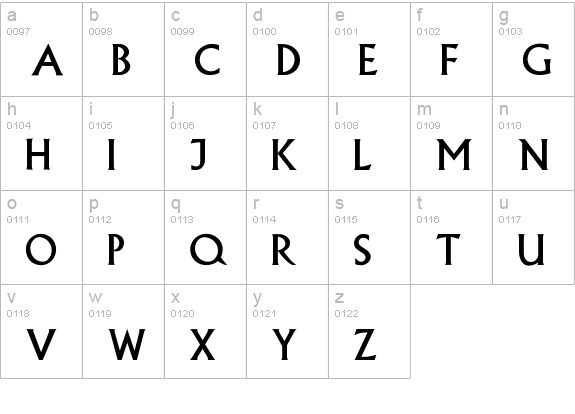
Valcona Font Details
Valcona is an exquisitely crafted font that combines elegance with a touch of modern sophistication. Its clean and stylish letterforms make it a versatile choice for a wide range of design projects, from branding and packaging to editorial and web design. With its balanced proportions and graceful curves, Valcona conveys a sense of refined beauty that is sure to captivate and engage viewers. Whether used for headlines, titles, or body text, this font effortlessly brings a touch of class to any composition. What sets Valcona apart is not only its aesthetic appeal but also its accessibility. This font is available for free to download at FontsMarket.com, allowing designers and enthusiasts alike to enjoy its timeless charm without any financial constraints. Valcona's extensive character set includes uppercase and lowercase letters, numerals, punctuation marks, and a variety of special characters. This versatility ensures that it can be used in multiple languages and accommodate various design requirements. Whether you're working on a high-end fashion magazine, a luxurious brand identity, or an elegant wedding invitation, Valcona is the perfect choice to elevate your designs to new heights. With its free availability on FontsMarket.com, Valcona empowers designers to create stunning visuals that leave a lasting impression.